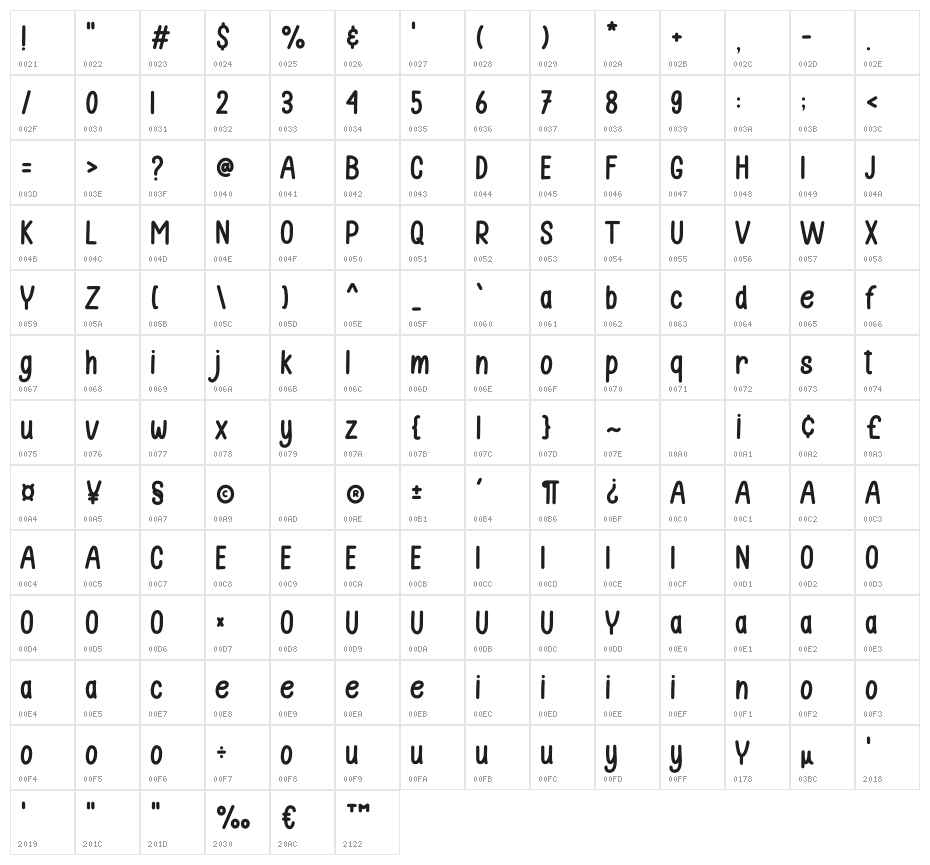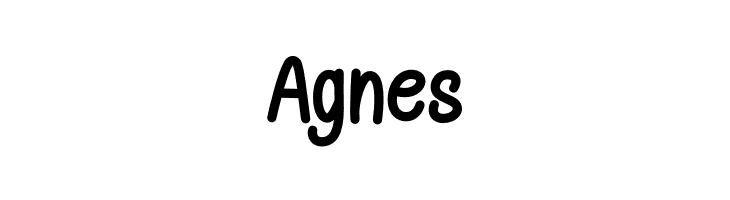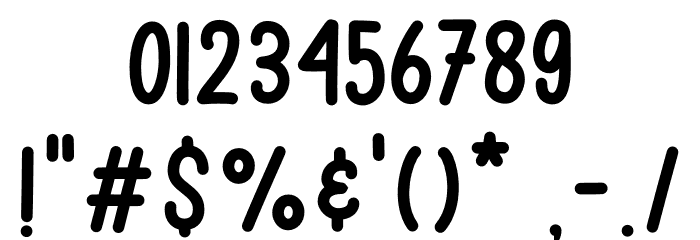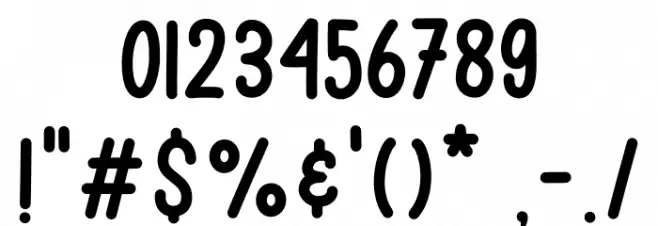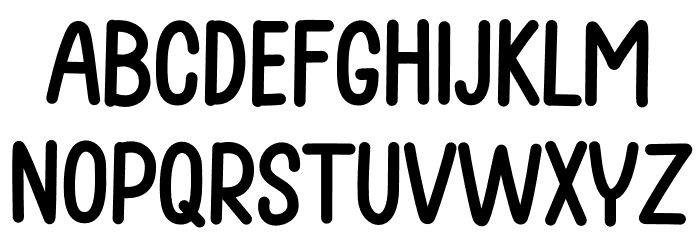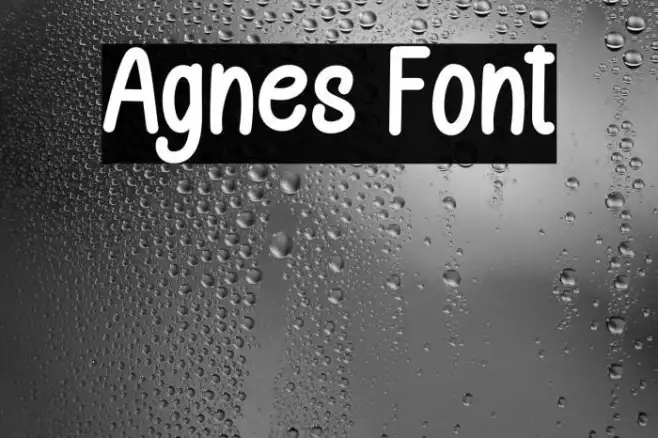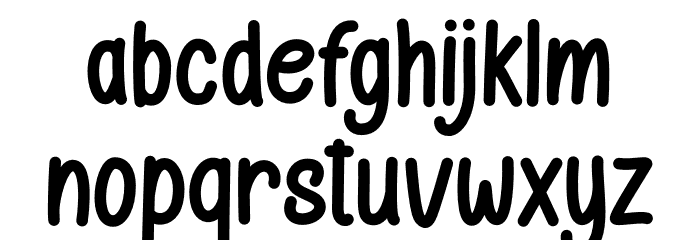
Agnes Font
Agnes Description
A rounded, playful sans-serif typeface with uniform stroke width, open counters, and a friendly, informal appearance. The characters are slightly condensed with generous x-height and soft curves, giving a handwritten yet highly legible feel.
| Overall Style | Handwritten, Playful, Informal |
| Use Case | Headlines, Posters, Children's content, Informal branding |
| Proposed Projects | Children's books, educational materials, posters, informal branding, greeting cards. |